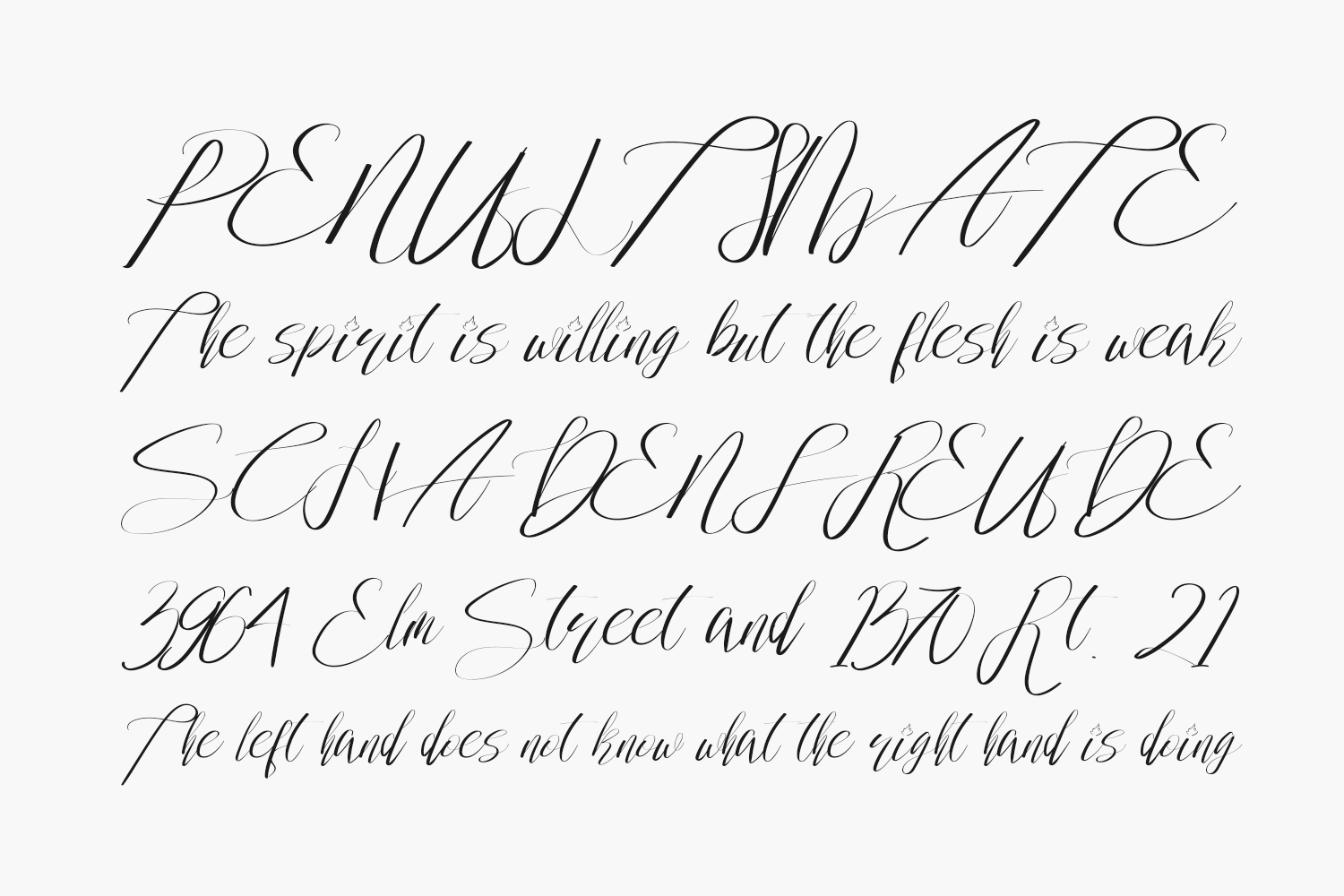
Wedding Joy Free Font is an elegant handwritten font. Use this font to turn every need of your project into a perfect work of art. Wedding Joy Free Font was designed by Ahammadiq Std and is free for personal use only. Please purchase the full version for commercial use.
Designed by Ahammadiq Std